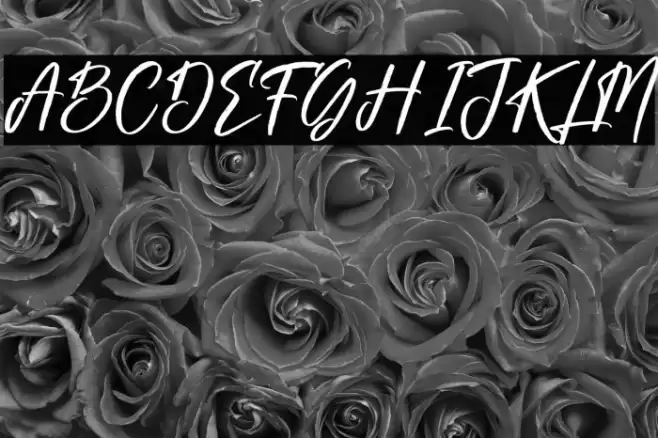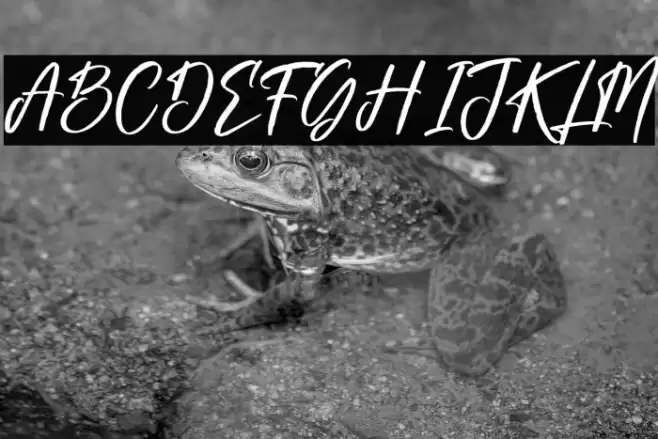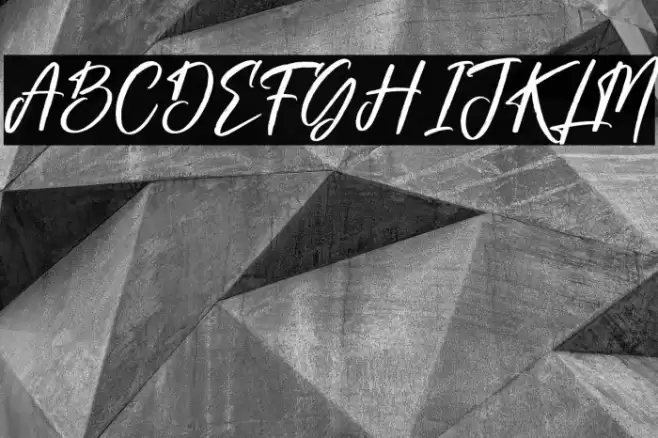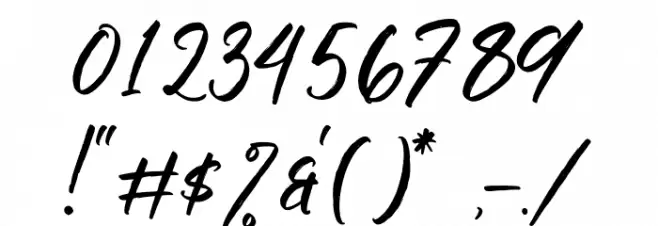
Gabriela Ragile Font
Gabriela Ragile Description
This font features a dynamic and expressive handwritten style, characterized by fluid strokes and a natural flow. The uppercase letters are bold and slightly slanted, giving a sense of movement and energy. The lowercase letters maintain a consistent style, with some characters extending below the baseline, adding to the font's lively appearance. Numbers and special characters are crafted with the same attention to detail, ensuring a cohesive look across all elements. The overall design is both elegant and casual, making it versatile for various creative projects.
A dynamic and expressive handwritten font with fluid strokes and a natural flow from Uncategorized fonts.
- Font: Gabriela Ragile
- Proposed Projects: Ideal for branding, invitations, greeting cards, and social media graphics.
- Use Case: Logos, Headlines, Invitations